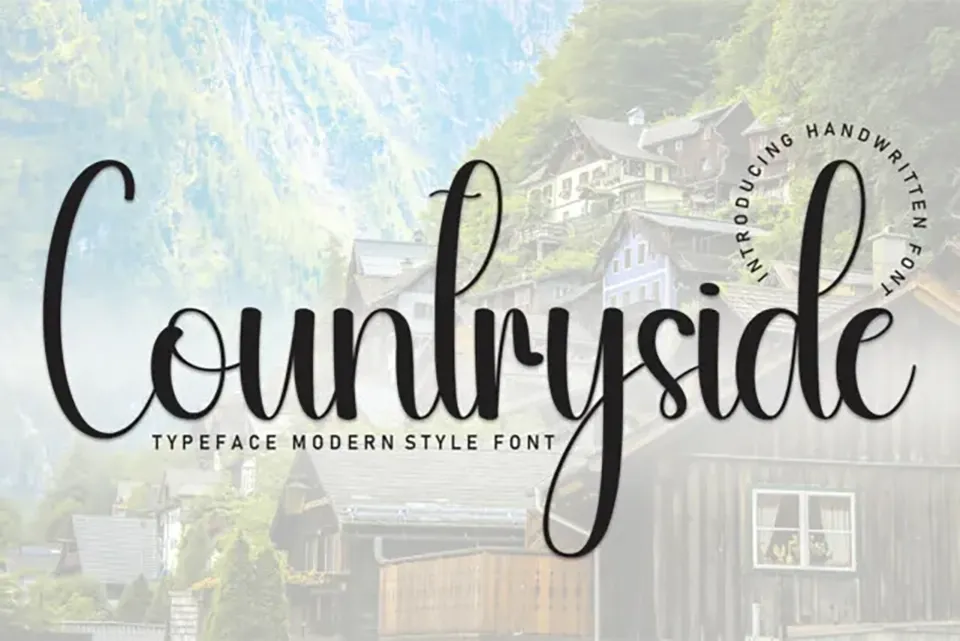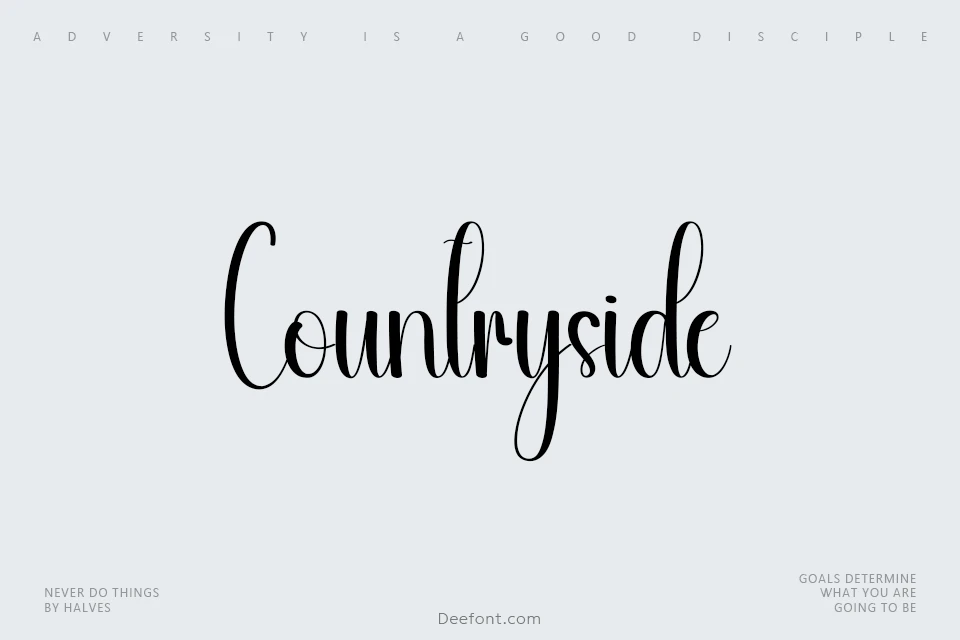
Countryside Script Font
Countryside Script Font is a sweet, friendly handwritten display font with a modern style. Its cute and playful character makes it ideal for wedding invitations, branding, logos, greeting cards, and other creative projects that require a personal touch. With its flowing, elegant strokes, Countryside Script Font brings warmth and charm to any design, making your typography stand out effortlessly.